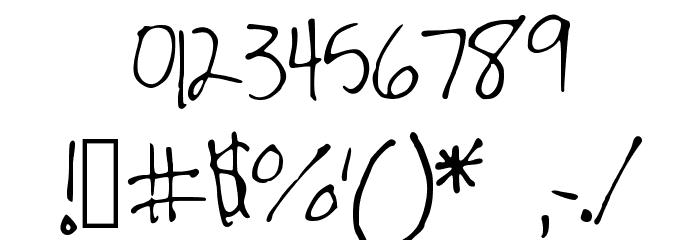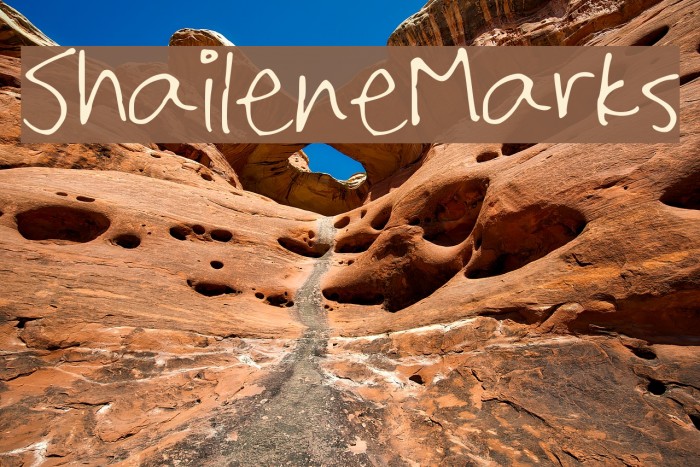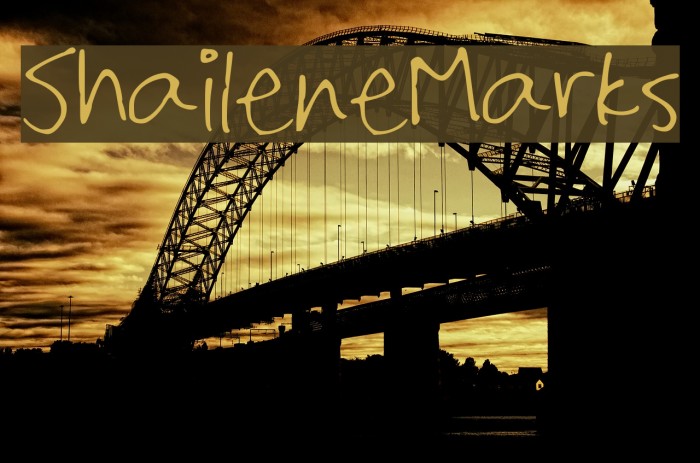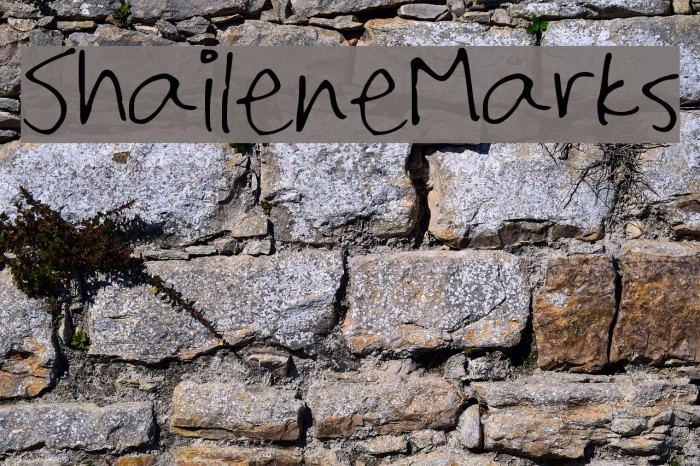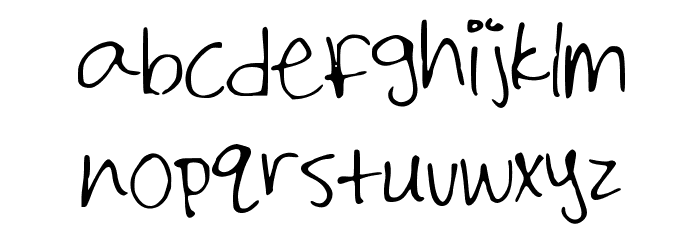
Shailene_Marks Font
This font features a playful and casual handwritten style, characterized by its irregular strokes and slightly uneven baseline. The letters are free-flowing with a natural, organic feel, making it appear as though they were written with a marker or pen. The uppercase letters are bold and prominent, while the lowercase letters maintain a consistent flow, enhancing readability. Numbers and special characters follow the same informal style, adding to the font's overall charm. The font's unique personality makes it suitable for creative projects that require a personal touch.
A playful, casual handwritten font with an organic, free-flowing style.
• Proposed Projects: Ideal for greeting cards, personal branding, social media graphics, and informal invitations.